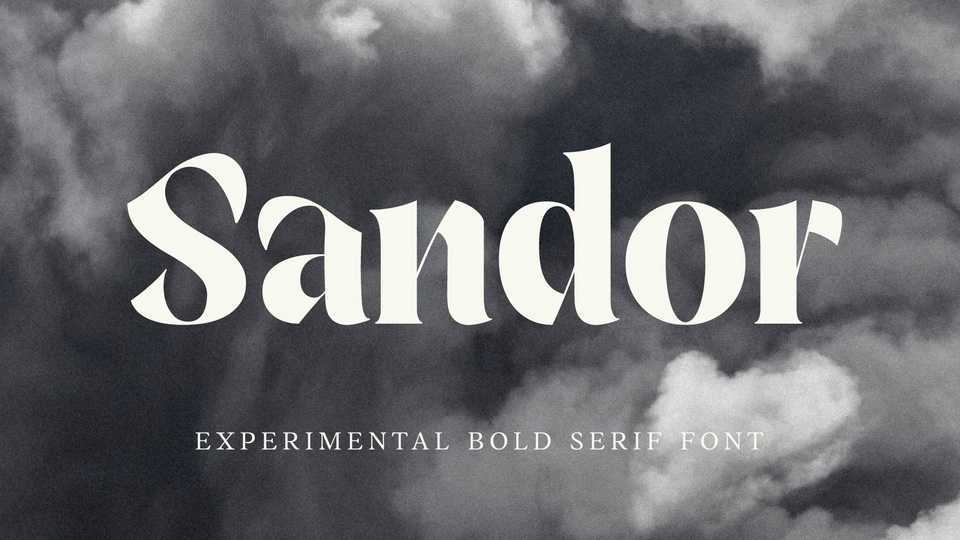
Download Sandor font, an experimental bold and sharp serif typeface. Sandor font is the best choice for creating eye-catching logos, branding, headlines and quotes.